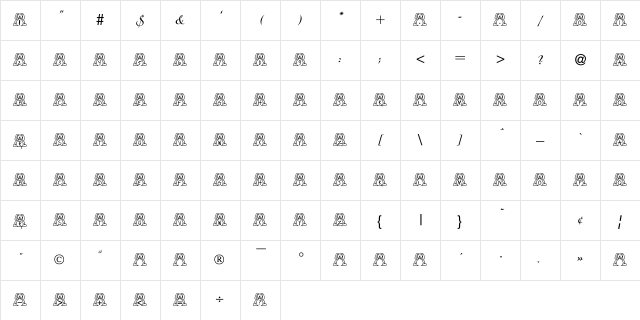
BillyBear EasterFont
Design Context for BillyBear EasterFont
BillyBear EasterFont is a composed and adaptable typeface that performs quietly and consistently across a wide range of design contexts.
Pro Tip: Use BillyBear EasterFont in both headline and body roles to test its range before committing to a single application.